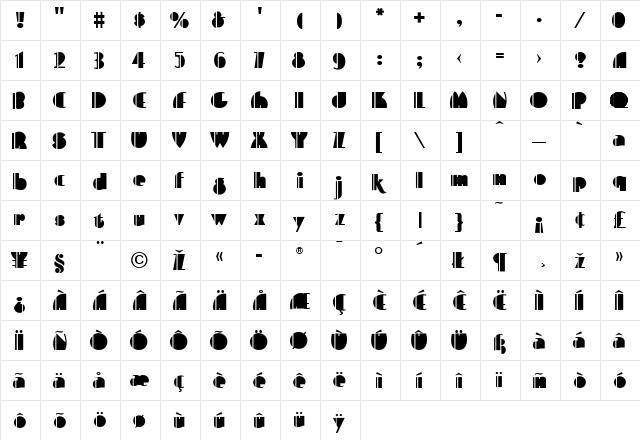
PlazaSuite Regular
| Foundry | Digitized by Dan X. Solo. Software \ by Dover Publications, Inc |
Design Context for PlazaSuite Typeface
PlazaSuite is a composed and adaptable typeface that performs quietly and consistently across a wide range of design contexts.